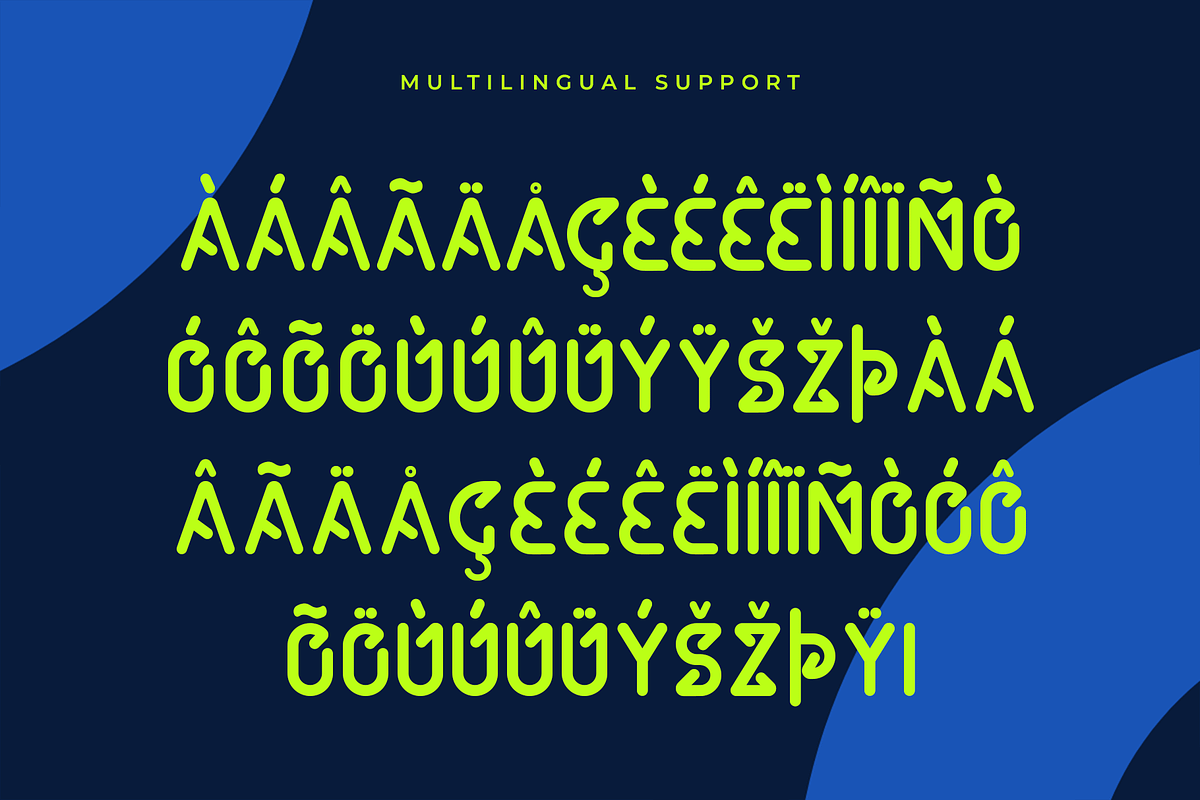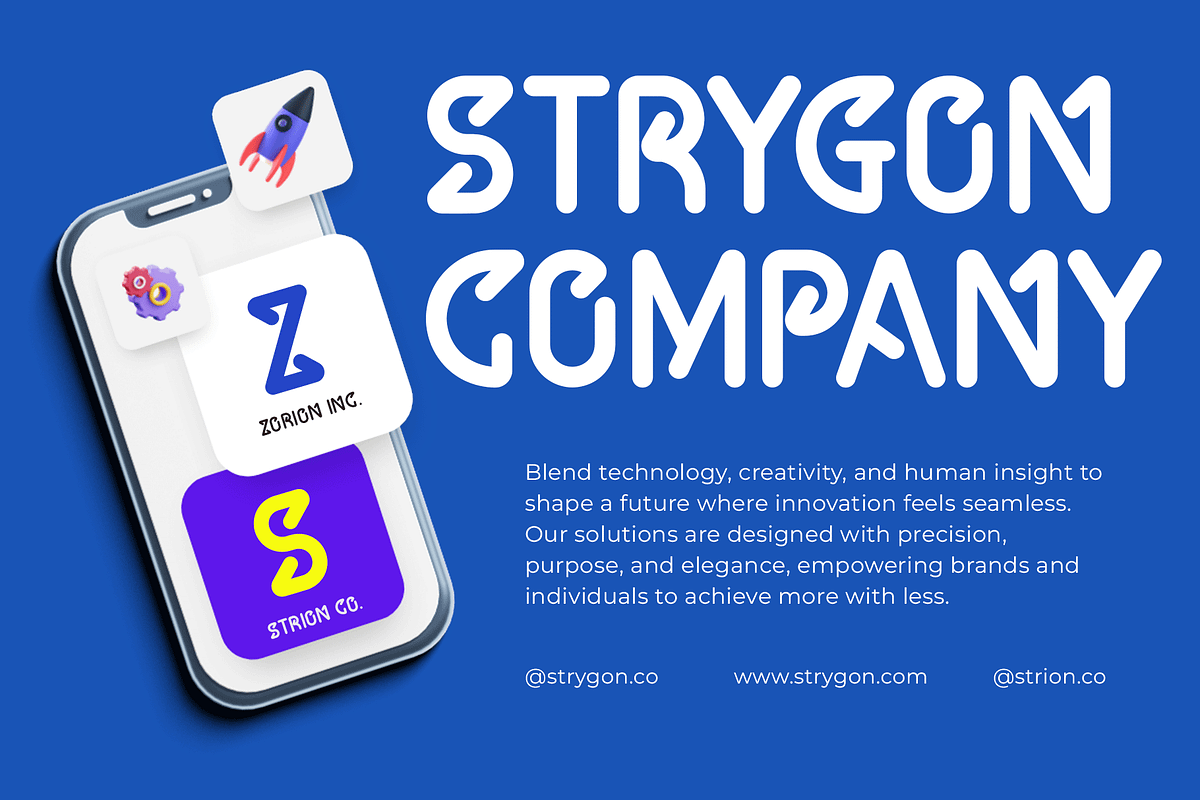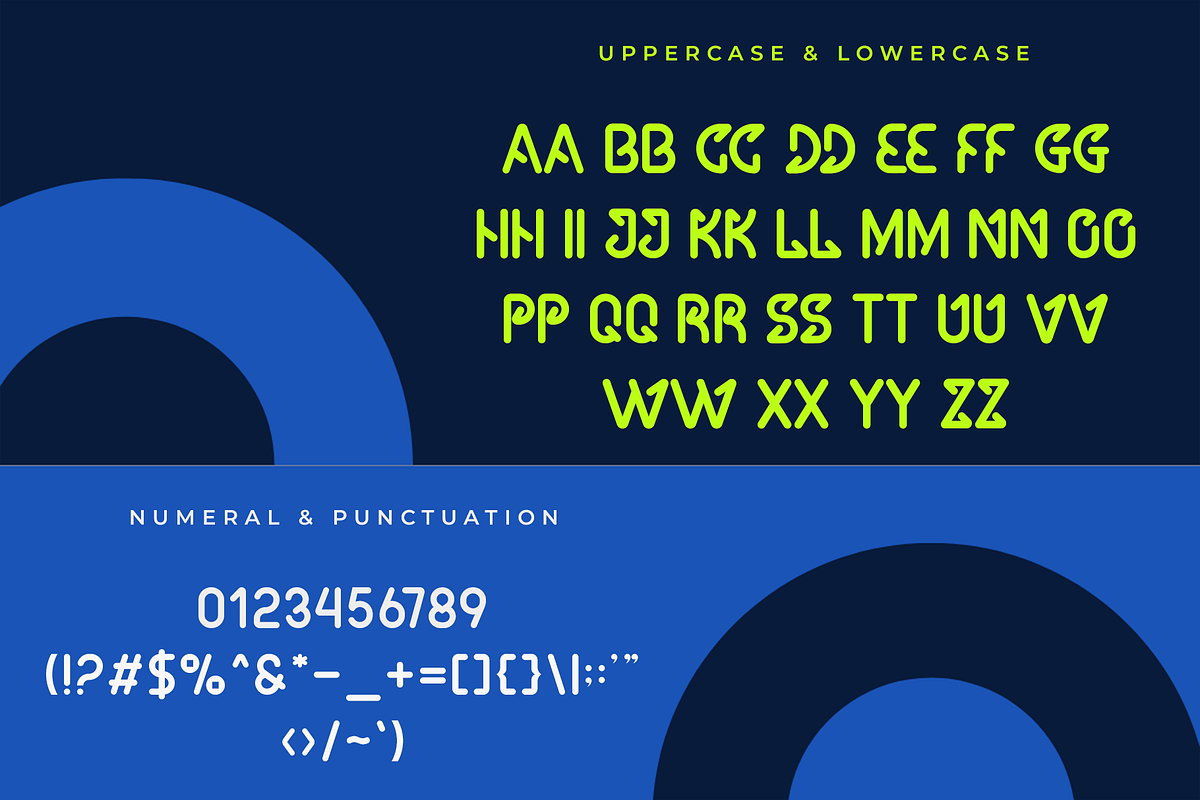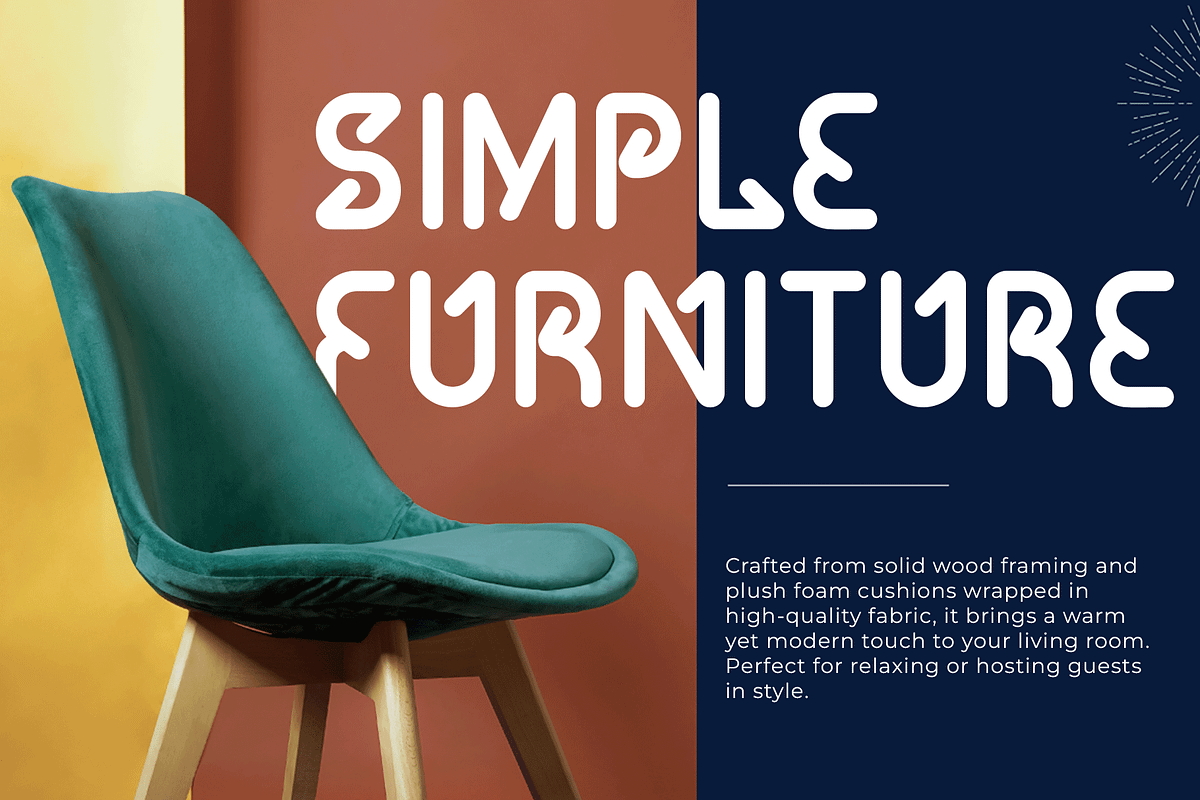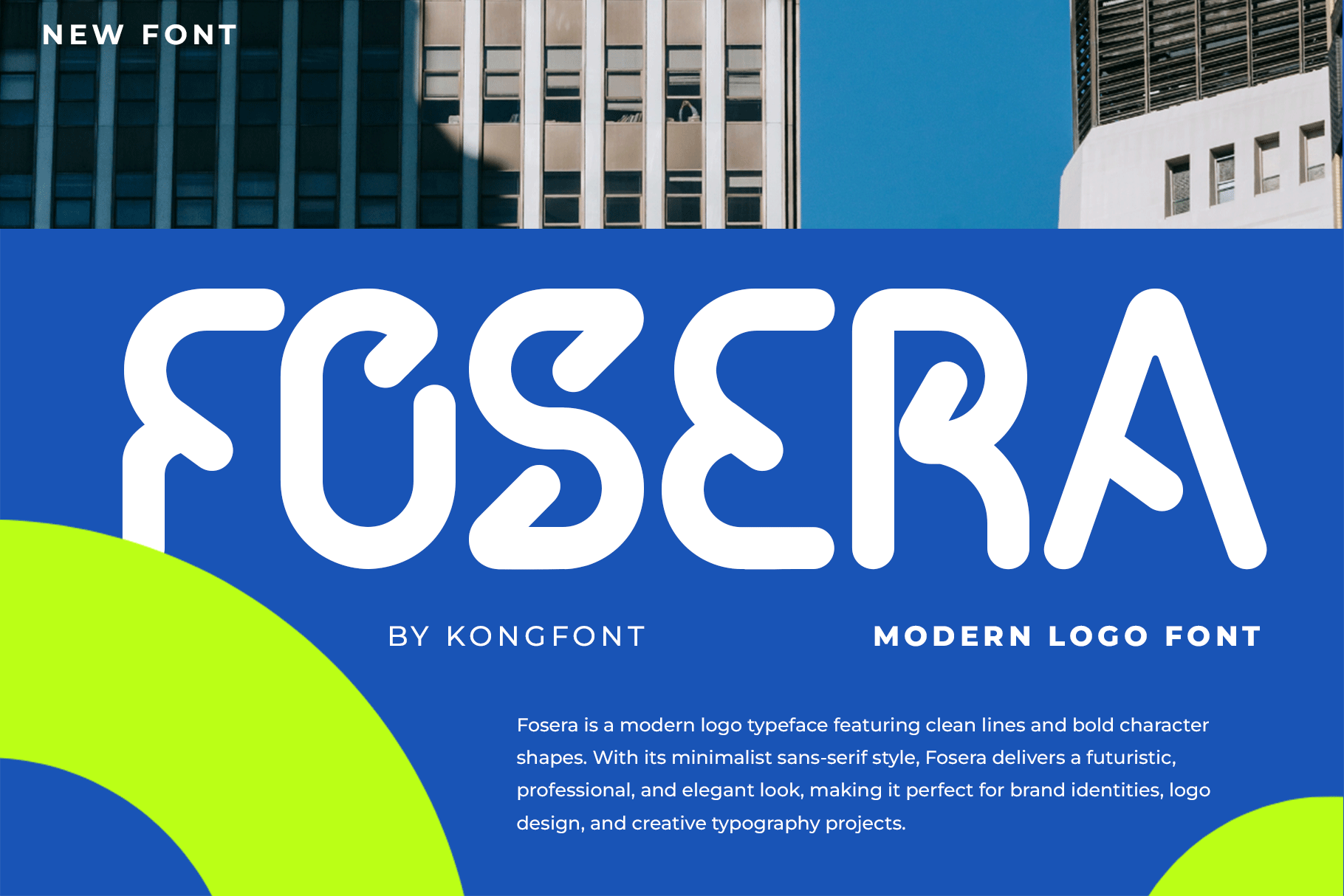
Fosera – Modern Logo Font
Meet "Fosera," a modern logo font that embodies the perfect blend of minimalism and contemporary design. Created for brands and designers who value clean aesthetics, Fosera delivers a strong visual presence through its sleek letterforms, balanced geometry, and timeless style.
Its versatile nature makes it an ideal choice for crafting impactful logos, high-end branding, packaging design, and digital content. Fosera’s precision and clarity ensure that your brand stands out across all platforms, from print to web, without losing its sophistication.
With its refined proportions and professional appeal, Fosera is not just a typeface it’s a statement of style and confidence. Whether for luxury fashion, tech startups, creative studios, or corporate identities, this font adapts seamlessly to any brand vision.